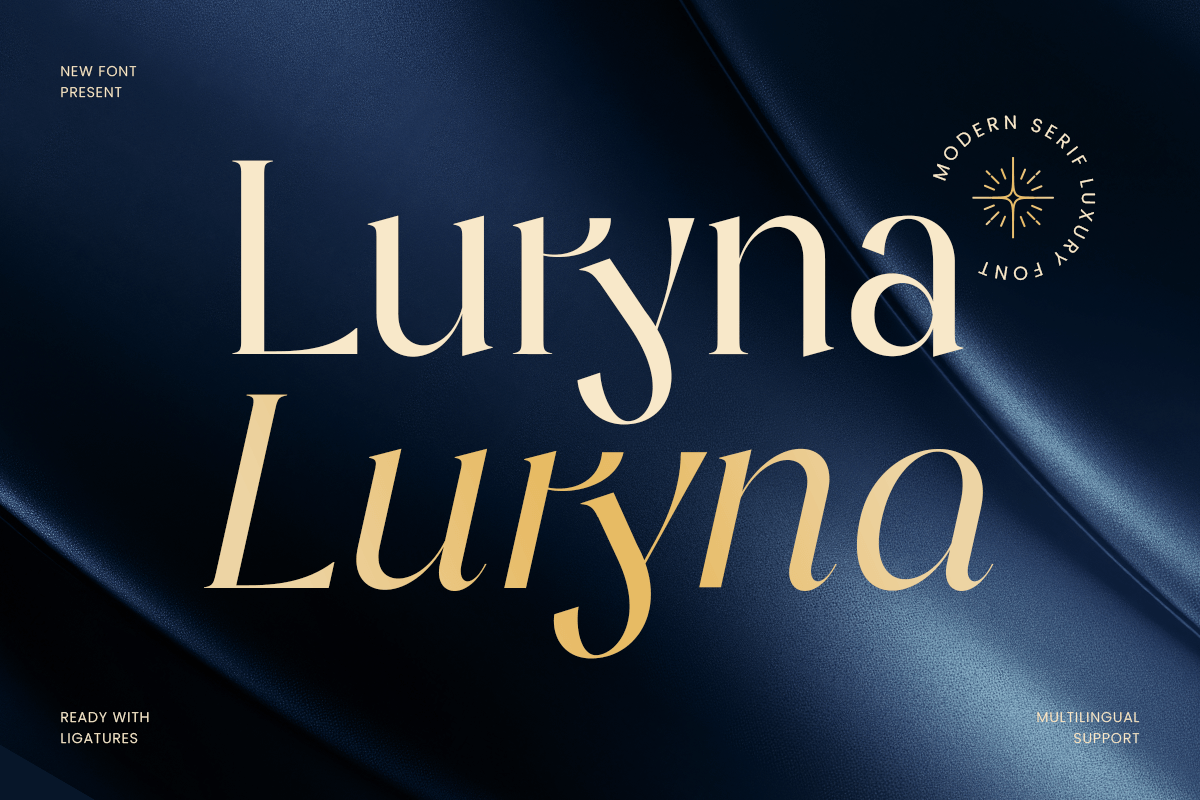
Luryna
-Modern Serif Luxury Font
Luryna - Modern Serif Luxury Font
Luryna is a modern serif luxury font crafted to deliver refined elegance with a contemporary edge. Its balanced proportions, clean serif details, and polished structure create a premium tone that feels graceful, confident, and timeless.
Designed for branding-focused typography, Luryna works seamlessly across logos, wordmarks, boutique identities, editorial headlines, premium packaging, website headers, posters, signage, and social media visuals. The modern serif construction gives your designs a high-end feel while maintaining clarity and versatility across digital and print layouts.
Whether you’re building a luxury brand identity, creating editorial compositions, or elevating premium marketing materials, Luryna provides a sophisticated serif voice that enhances visual storytelling and brand perception.
Inspiration Behind Luryna
Luryna is inspired by modern luxury branding and refined editorial typography—where elegance, balance, and clarity define premium design. The font is built to support upscale logos and modern headlines that communicate trust, style, and timeless sophistication.
Luryna Font Features
• Modern serif letterforms with luxury character
• Clean, elegant structure for logo and branding use
• Ready with Regular and Italic version for variations
• Strong readability for headlines and display typography
• Luxury logos and premium brand identity systems
• Fashion, beauty, and boutique branding
• Editorial headlines, magazine layouts, and lookbooks
• Packaging, labels, and refined product design
• Website headers, banners, and social media campaigns
Elevate premium visual identity with Luryna - crafted for modern luxury serif elegance and refined branding impact. ✨